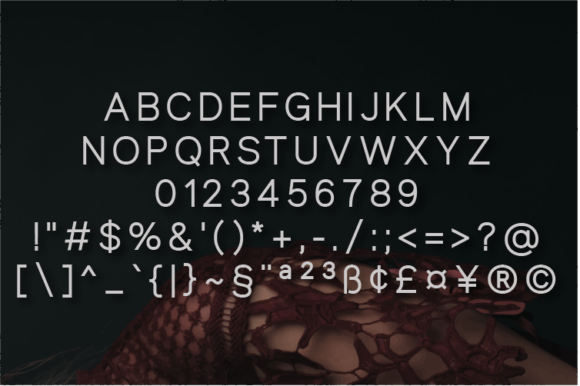
Introducing Colbey Bold Font: Elevate Your Designs with Elegance and Sophistication
In the world of typography, a well-crafted font can make all the difference in elevating your designs to the next level. Colbey Bold font is a stunning example of modern sans serif typography, boasting soft edges and a clean, stylized geometry that exudes elegance and sophistication. Designed to provide a harmonious appearance for both texts and headlines, Colbey Bold is an excellent choice for designers, crafters, and anyone looking to add a touch of refinement to their projects.
Key Features of Colbey Bold Font
- Elegant Contemporary Design: Colbey Bold font features a sleek, modern design with soft edges that set it apart from traditional sans serif fonts.
- Clean and Stylized Geometry: The font’s geometry is meticulously crafted to provide a clean and stylized appearance, making it perfect for use in a variety of design applications.
- Harmonious Appearance: Colbey Bold font is designed to provide a harmonious appearance for both texts and headlines, ensuring that your designs look cohesive and visually appealing.
- Versatile: This font is suitable for a wide range of design applications, including branding, logos, web design, and more.
Why Choose Colbey Bold Font?
With so many fonts available, why choose Colbey Bold? Here are just a few reasons why this font stands out:
- Unique Aesthetic: Colbey Bold font offers a unique aesthetic that sets it apart from more traditional fonts. Its soft edges and clean geometry provide a distinctive look that’s sure to grab attention.
- Highly Versatile: Whether you’re designing a logo, website, or marketing materials, Colbey Bold font is an excellent choice. Its versatility ensures that it will work well in a variety of design applications.
- Ease of Use: Colbey Bold font is easy to read and use, making it perfect for both body text and headlines.
- Professional-Grade: This font is designed to provide a professional-grade look, making it ideal for businesses, designers, and crafters who want to elevate their designs.
Design Applications for Colbey Bold Font
So, how can you use Colbey Bold font in your designs? Here are just a few ideas to get you started:
- Branding: Use Colbey Bold font to create a distinctive brand identity that sets your business apart.
- Logos: This font is perfect for creating logos that are both elegant and eye-catching.
- Web Design: Colbey Bold font is well-suited for use in web design, providing a clean and professional-grade look that’s perfect for websites and landing pages.
- Marketing Materials: Use this font to create marketing materials that are both visually appealing and effective, such as brochures, flyers, and business cards.
Tips for Using Colbey Bold Font
To get the most out of Colbey Bold font, here are a few tips to keep in mind:
- Pair with Other Fonts: Experiment with pairing Colbey Bold font with other fonts to create a unique and visually appealing look.
- Use in Headlines: This font is perfect for use in headlines, where its bold and elegant design can really shine.
- Adjust Font Size: Don’t be afraid to experiment with different font sizes to find the perfect balance for your design.
In conclusion, Colbey Bold font is an exceptional choice for designers, crafters, and anyone looking to elevate their designs with elegance and sophistication. Its unique aesthetic, versatility, and professional-grade design make it an excellent addition to any design toolkit. Whether you’re creating branding materials, logos, websites, or marketing materials, Colbey Bold font is sure to help you achieve your design goals.